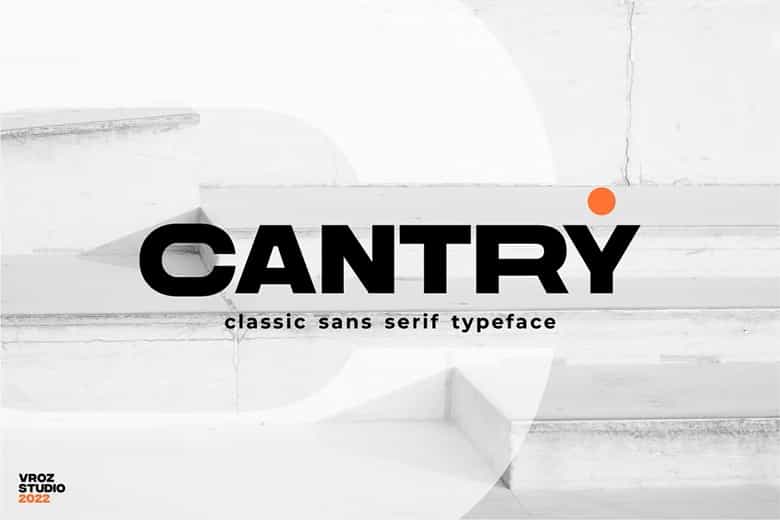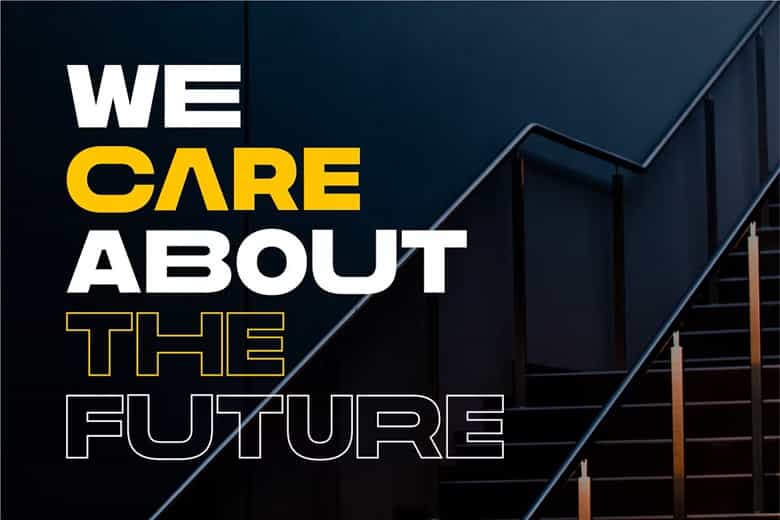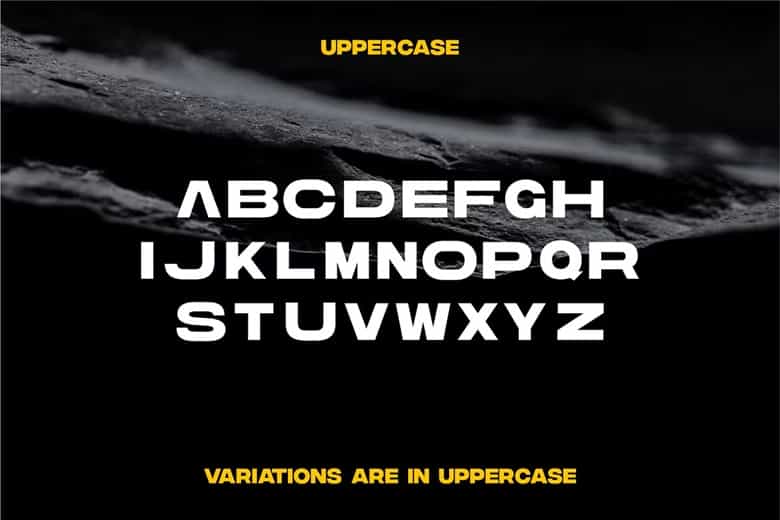
Cantry is a classic sans serif typeface, It’s perfect for many projects: fashion, magazines, logo, branding, photography, quotes, blog header, poster, advertisements, postcards, books, websites, etc.